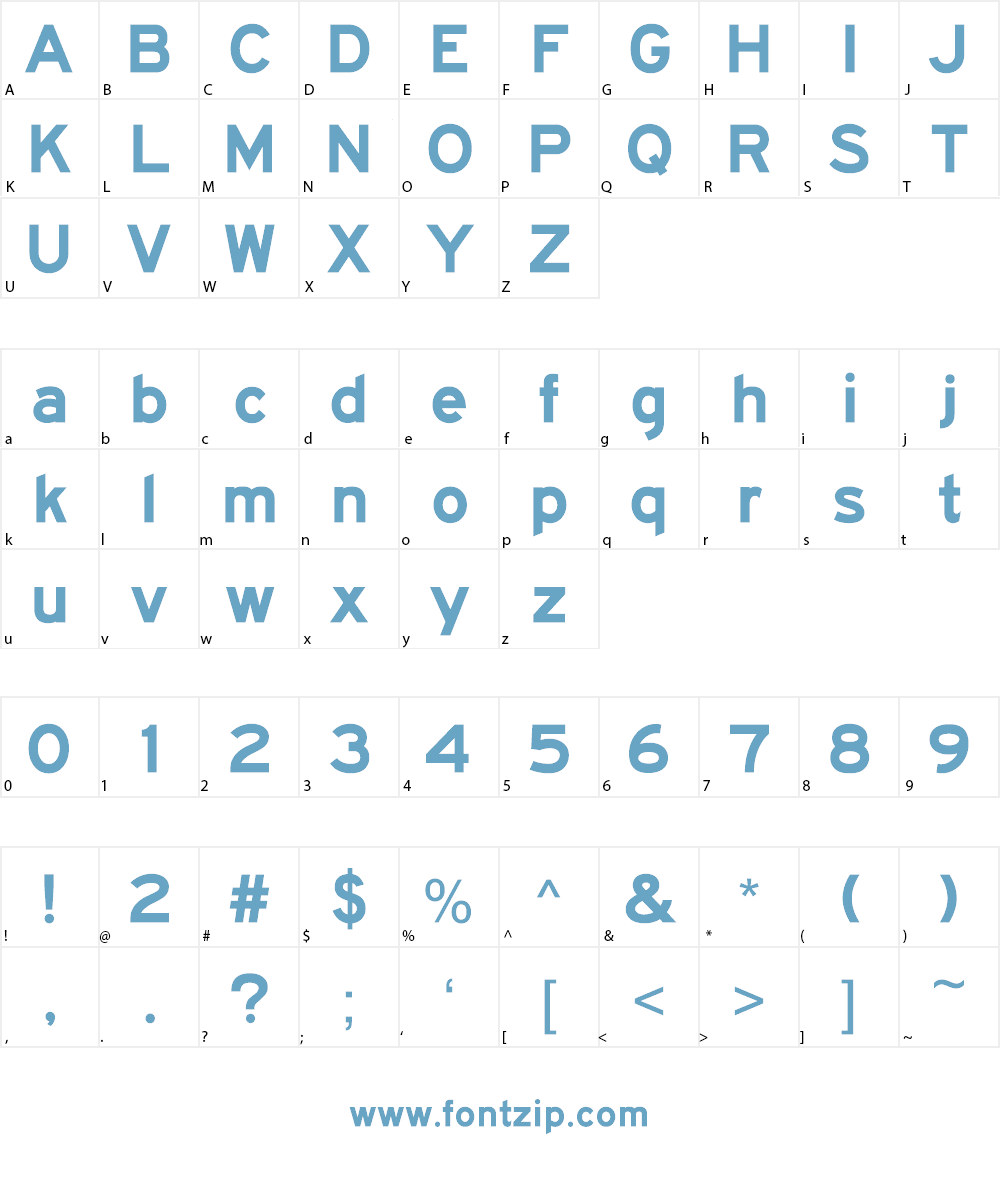
This represents a modification to Byway E in keeping with and very closely following the modification to Highway Gothic Series E (5/6 H/V stress) used in the most commonly seen interstate signs.